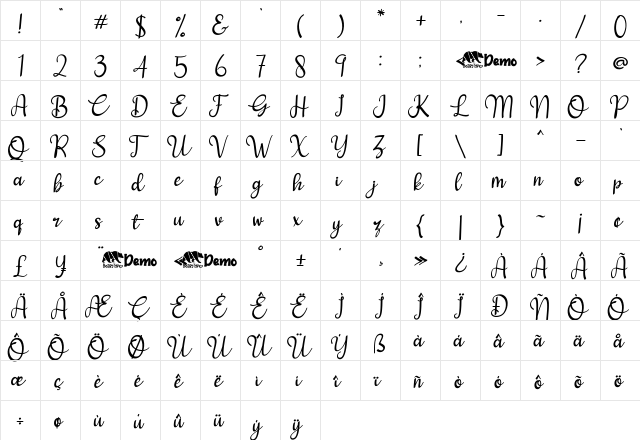
love and heart Regular
Design Context for love and heart Typeface
love and heart is a composed and adaptable typeface that performs quietly and consistently across a wide range of design contexts.